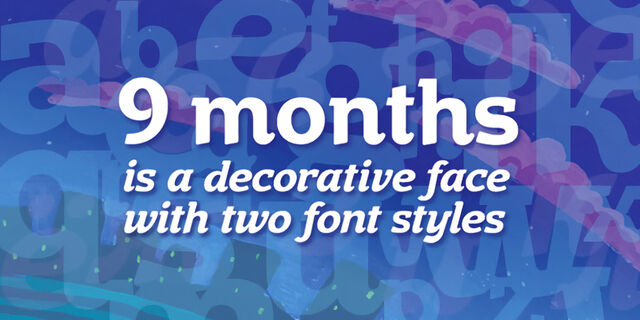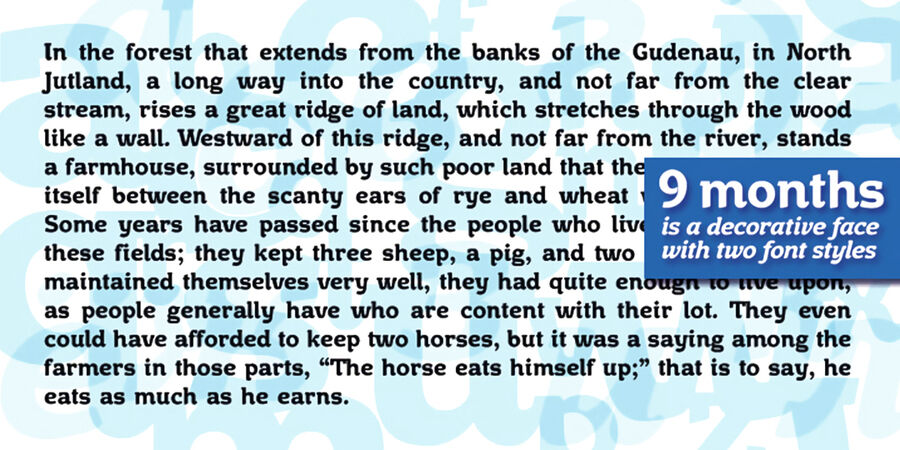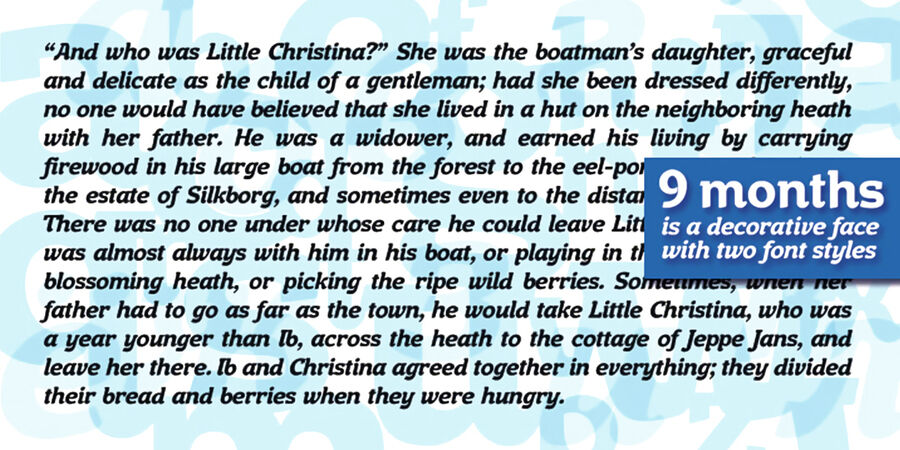
About 9 Months9 months is a decorative typeface with two font styles. It would look nice on candy and food package, in children’s books and magazines.
This work is devoted to the period in my wife’s life when she was pregnant during 9 months with our daughter.
The typeface was designed by Kyrylo Tkachov in 2009–2010.
Associations for font family 9 MonthsTypeface personality and character:
Soft, cozy, moderate, calm, stable, universal, polite, cultured, comfortable, smooth, peaceful, friendly, clear, static, restrained, modern, eco-friendly, green, harmonious, organic, beautiful, plastic, flexible, pleasant, kind, cultural, orderly, optimistic, leisurely, juicy, cute, spring, family, festive, home, delicious, fresh, confidence, summer, warm, high-quality, pretty, nice, natural, girlish